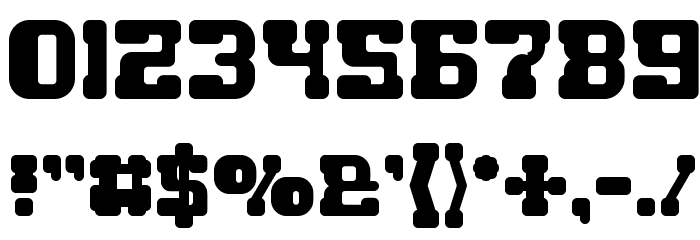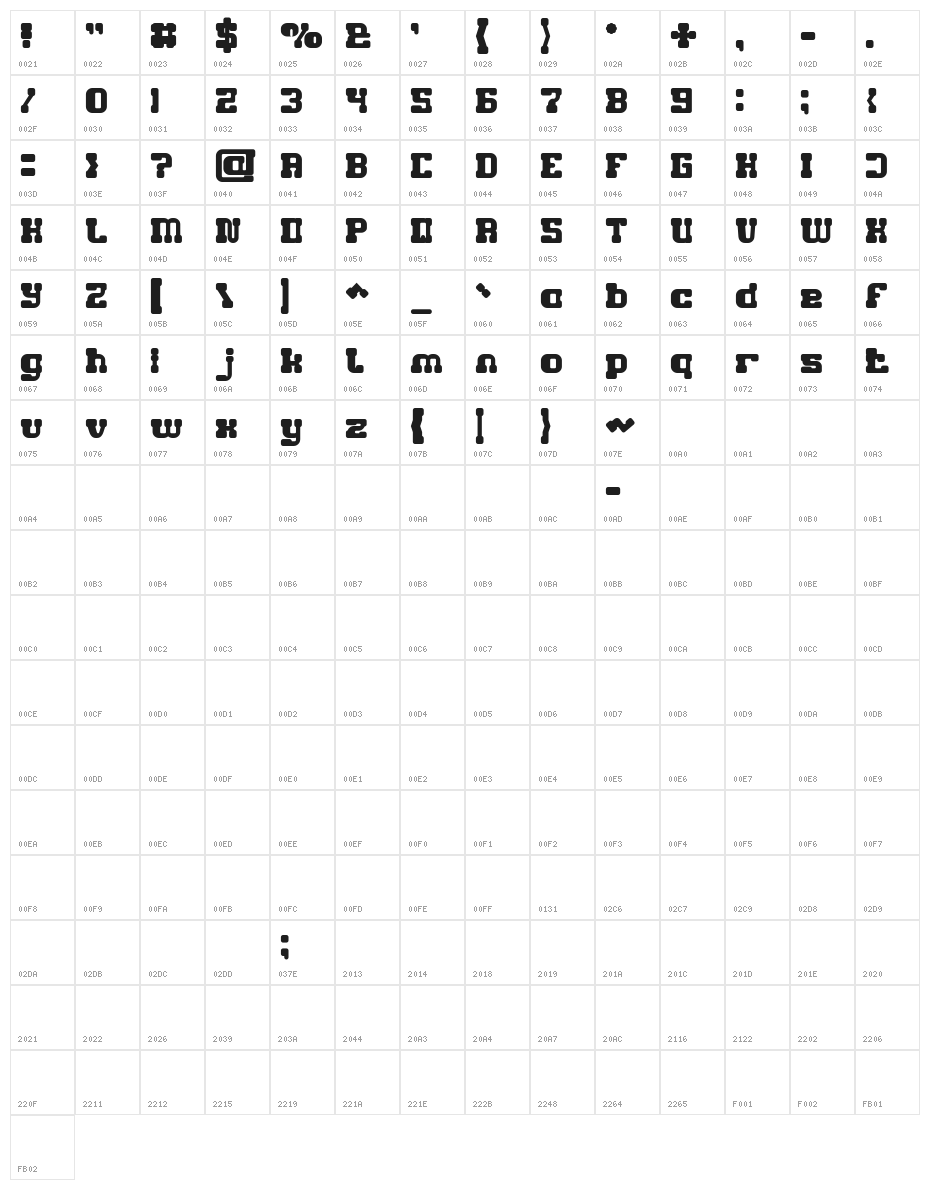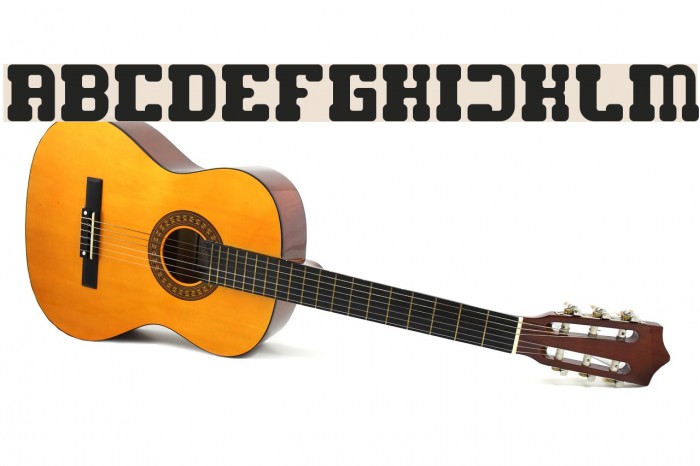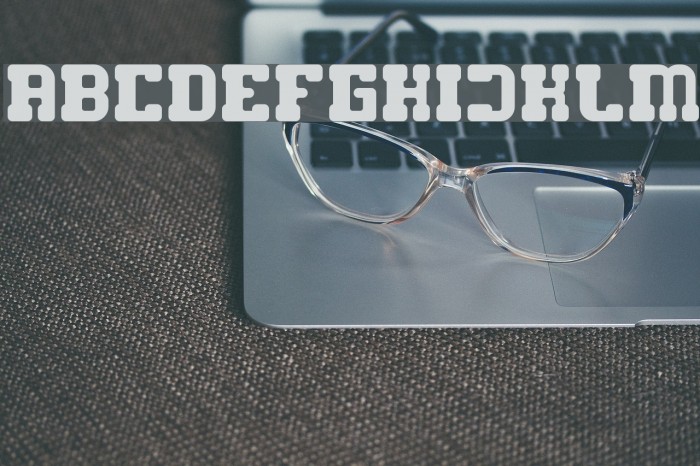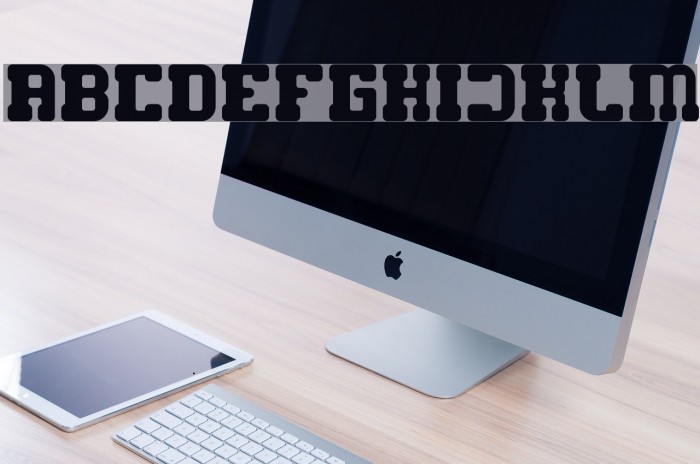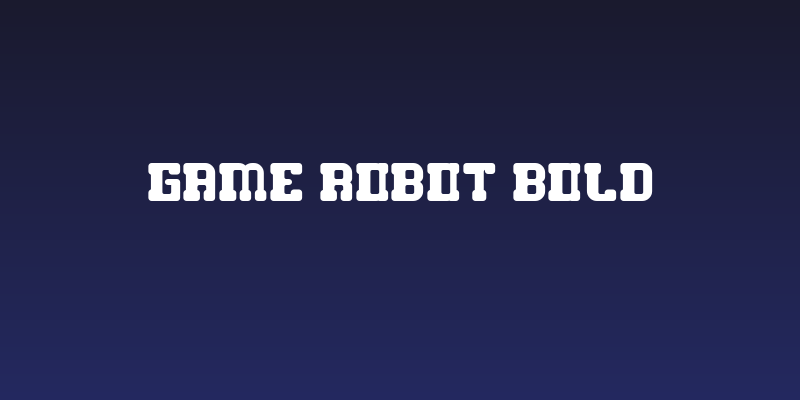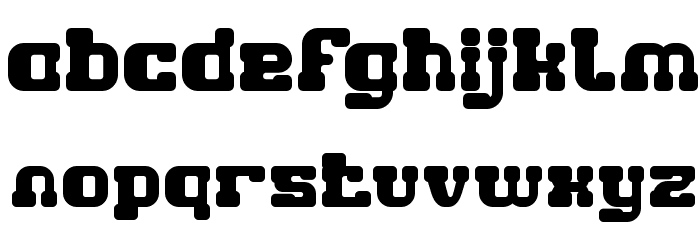
GAME ROBOT Bold Font
GAME ROBOT Bold Description
This bold and robust font features a unique, futuristic design with rounded edges and thick strokes, creating a strong visual impact. The characters are uniformly wide, giving a sense of stability and strength. The uppercase and lowercase letters maintain a consistent style, with the lowercase letters slightly smaller but equally bold. Numbers and special characters are designed to match the overall aesthetic, ensuring a cohesive look across all text. The font's boldness and distinctive style make it ideal for projects that require a modern and eye-catching appearance.
| Proposed Projects | Ideal for video game titles, tech branding, posters, and futuristic-themed designs. |